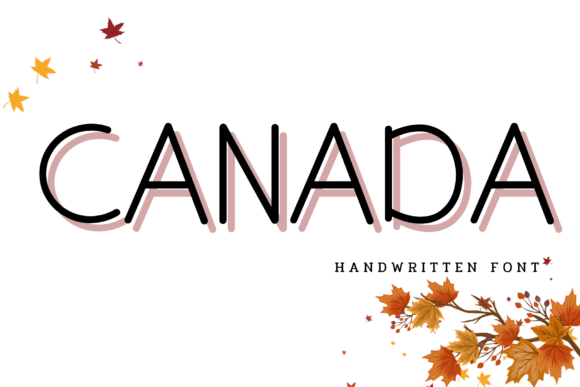
Canada Day Font: A Handwritten Font for Various Creative Projects
Canada Day is a special occasion celebrated on July 1st every year. It’s a day to commemorate the enactment of the Canadian Constitution Act in 1867. On this day, Canadians come together to celebrate their country’s history, culture, and achievements. One way to show your patriotism and creativity is by using a unique font, specifically designed for Canada Day. In this article, we’ll introduce you to the Canada Day Font, a beautiful handwritten font perfect for various creative projects.
What is Canada Day Font?
Canada Day Font is a handwritten font designed to resemble the handwriting of a native Canadian. It’s a unique and elegant font that can add a personal touch to your creative projects. The font is carefully crafted to reflect the country’s rich history and cultural heritage. With its rustic and charming feel, Canada Day Font is perfect for creating handmade-style designs that evoke a sense of nostalgia and warmth.
Uses of Canada Day Font
Canada Day Font is a versatile font that can be used for a wide range of creative projects. Here are some ideas to get you started:
- Note-taking and journaling: Use Canada Day Font to add a personal touch to your notes, journals, and diaries.
- Greeting cards and invitations: Create beautiful handmade-style greeting cards and invitations for special occasions.
- Banners and posters: Design eye-catching banners and posters for Canada Day celebrations or other events.
- Social media posts: Add a touch of personality to your social media posts, especially those related to Canada Day or Canadian culture.
- Mugs and water bottles: Design customized mugs and water bottles with inspiring quotes or fun phrases.
- T-shirts and hoodies: Create unique and stylish designs for t-shirts and hoodies.
- Stationery and gift tags: Use Canada Day Font to create beautiful stationery, gift tags, and wrapping paper.
Features of Canada Day Font
Canada Day Font has several features that make it a great choice for your creative projects:
- Handwritten style: The font has a natural, handwritten look that adds a personal touch to your designs.
- Unique character set: The font includes a range of characters, including uppercase and lowercase letters, numbers, and punctuation marks.
- Easy to read: Despite its handwritten style, Canada Day Font is easy to read, making it perfect for body text and captions.
- Scalable: The font is highly scalable, allowing you to use it for various design projects, from small icons to large banners.
Tips and Tricks for Using Canada Day Font
Here are some tips and tricks to help you get the most out of Canada Day Font:
- Experiment with font sizes: Try different font sizes to create visual interest and hierarchy in your designs.
- Combine with other fonts: Combine Canada Day Font with other fonts to create a unique and visually appealing design.
- Use colors and textures: Add colors and textures to your design to make it more engaging and dynamic.
- Keep it simple: Don’t overcomplicate your design – keep it simple and clean to let the font shine.
In conclusion, Canada Day Font is a beautiful handwritten font that’s perfect for various creative projects. With its unique character set, easy-to-read style, and scalable design, it’s an excellent choice for designers, crafters, and anyone looking to add a touch of personality to their work. Whether you’re creating greeting cards, social media posts, or customized merchandise, Canada Day Font is sure to inspire your creativity and showcase your Canadian pride.